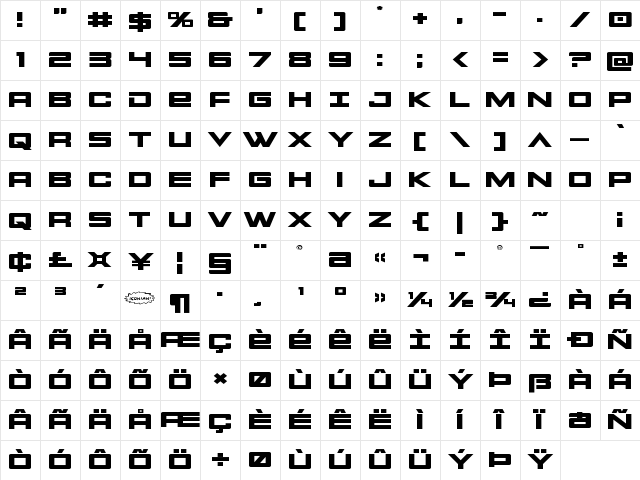
Montroc Expanded Free Font
Montroc Expanded
Style: Expanded
Design Context for Montroc
Montroc is a composed and adaptable typeface that performs quietly and consistently across a wide range of design contexts.